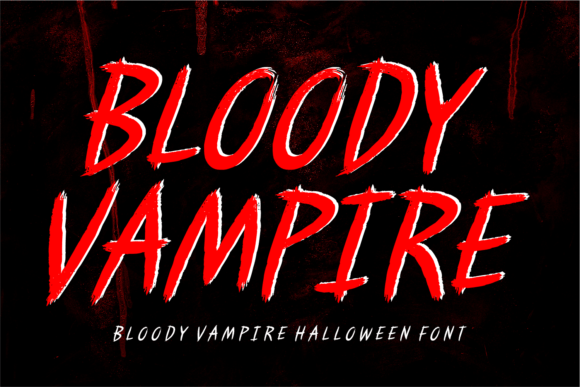
Unleash the Terror: Meet the Bloody Vampire Font
I’ll never forget the time I was working on a Halloween-themed project for a client, and I just couldn’t find the right font to capture the spooky essence of the season. The client wanted something that would send shivers down their guests’ spines, but everything I found was either too playful or too generic. That’s when I stumbled upon the Bloody Vampire font – a spine-chilling, bold, and eerie typeface that instantly gave me the Halloween vibe I was looking for.
A Spooky Masterpiece: What I Love About Bloody Vampire
The Bloody Vampire font is a masterpiece for anyone looking to add a touch of frightful fun to their designs. Here’s what I love about it:
- ✨ Bold and Eye-catching: Each letter stands tall and bold, making it perfect for grabbing attention.
- ✅ Written in Blood: The font’s blood-red color adds an extra layer of spookiness, making it ideal for Halloween-themed projects.
- 🔥 Versatile: From spooky invitations to haunted house signage and eerie party decorations, this font can be used in a variety of creative projects.
An Honest Review: The Not-Perfect-but-Almost-There Font
While I absolutely love the Bloody Vampire font, there are a few quirks to keep in mind:
- 🤔 Limited OpenType Features: The font could benefit from more OpenType features, such as stylistic alternates or swashes, to give designers more creative freedom.
- ⚠️ Not Suitable for Body Text: Due to its bold and distressed nature, this font is best used for headlines or titles, rather than body text.
The Story Behind Bloody Vampire: Designer Inspiration
The Bloody Vampire font was inspired by the dark and mysterious world of vampires and Halloween folklore. The designer aimed to create a font that would evoke the fear and excitement associated with the spookiest time of the year. With its bold and blood-red letters, Bloody Vampire is sure to cast a spell on your audience.
| What type of projects is Bloody Vampire best suited for? | Bloody Vampire is perfect for Halloween-themed projects, such as spooky invitations, haunted house signage, and eerie party decorations. |